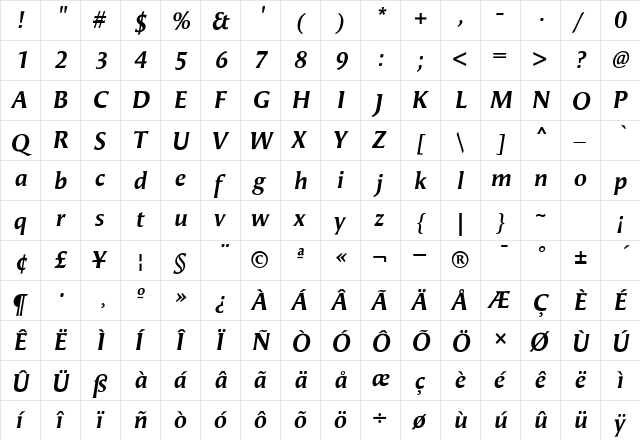
Angie BoldItalic Font Preview
Angie BoldItalic
Angie BoldItalic Font Details
Design Context for Angie Typeface
Angie takes a measured approach to typography — its balanced proportions and neutral character make it a reliable workhorse for both digital and print work. The dynamic lean of this cut emphasises speed and emphasis in any layout. Its bold stroke weight gives it real presence on the page.
Pro Tip: Use Angie for emphasis, pull quotes, and subheadings where its slanted energy can add rhythm to the layout.